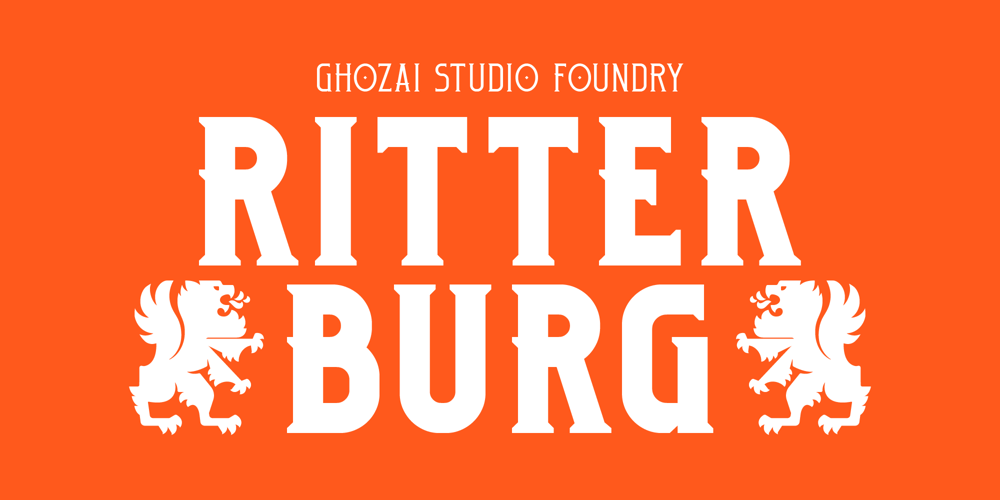
Ritterburg Font Family was designed by Manzur Ghozaali and published by Ghozai Studio. Ritterburg contains 18 styles and family package options. Ritterburg is the simple and bold display font for any of your projects. Ritterburg is inspired by Classic German typography. A bold appearance makes impactful typographic applications. Ritterburg comes in a wide range of styles, 18 styles (9 plains and 9 italics), from thin to black, and the italic version. Ritterburg is also supported with many Opentype features and is multilingual to support any needs. Ritterburg is ideal for sports, headlines, titles, signage, branding, and strong designs that require a big impact.